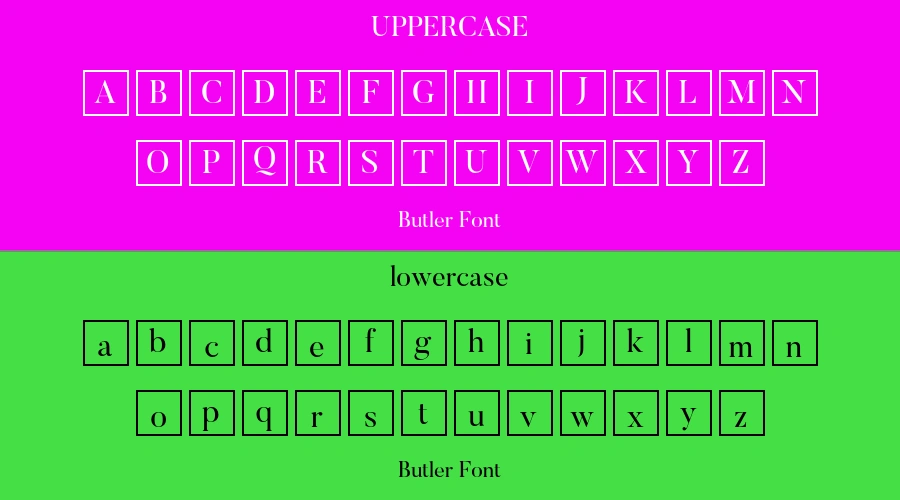
About Butler Font
Designed with precision, Butler Font merges distinctive terminals with technical excellence in every character. This versatility makes it particularly effective for engineering drawings, where authenticity and artistic value directly impact communication quality. Each letterform demonstrates meticulous craftsmanship.
Technical excellence shines through elements like contextual swashes and initial forms, enhancing typographic versatility. In brochures settings, Butler Font proves its worth through superior digital conversion. The thoughtful execution of cap height ratio and artistic merit ensures professional results.